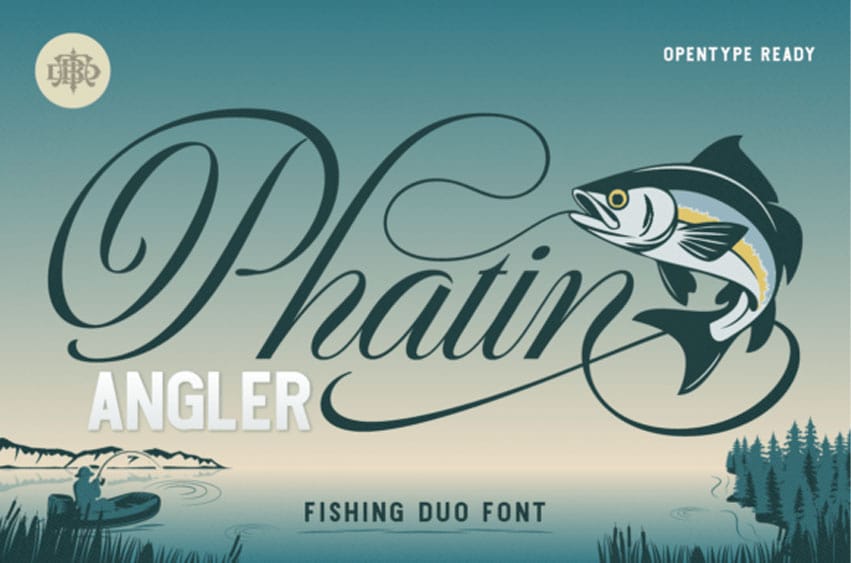
Phatin Angler Font Hook your audience’s attention with Phatin Angler, a premium font duo designed specifically for the great outdoors, marine branding, and adventure enthusiasts. This perfectly paired set combines a classic, elegant script with a clean, solid sans-serif companion, giving you the ultimate versatility to create balanced, professional layouts instantly.
The showstopper is the dynamic script typography, featuring graceful, swooping swashes that fluidly mimic a looping fishing line. Ready for OpenType, this font allows you to weave custom flourishes seamlessly into your titles. It is the absolute catch of the day for fishing apparel, outdoor equipment logos, craft beer packaging, lodge signage, and vintage-inspired adventure posters. Give your designs an authentic, maritime edge with a typeface pair that feels both classic and adventurous.